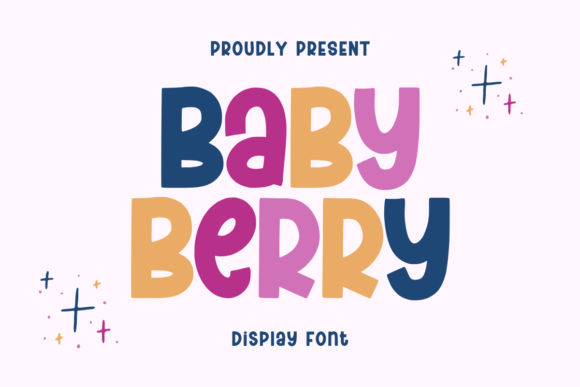
Baby Berry Font
Baby Berry is a fun and quirky display font. This font is very suitable for your various creative needs such as printing, books, titles, headlines,wedding,quotes, photography, decoration, branding, logos, and others.